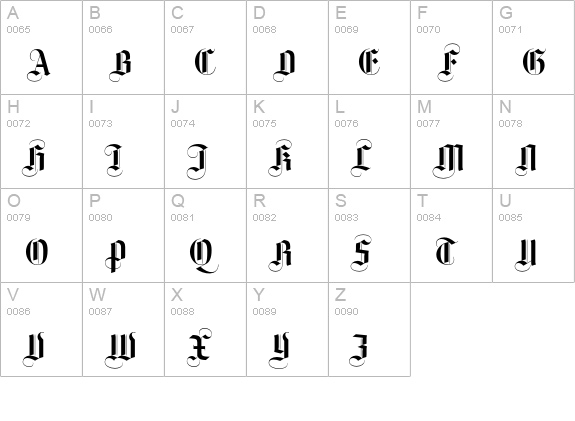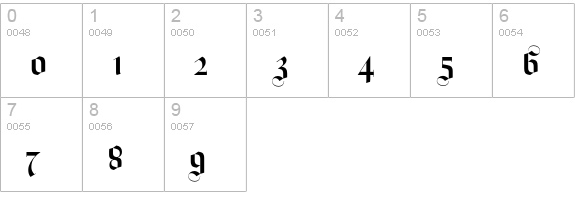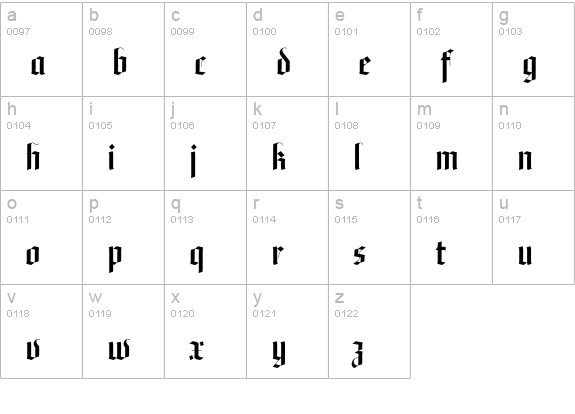
Plagwitz CE Font Details
Introducing Plagwitz CE, a captivating font that effortlessly combines elegance with modernity. This unique typeface is the perfect choice for those seeking a versatile and visually striking font that stands out from the crowd. Plagwitz CE offers a distinctive and sophisticated appeal, making it ideal for a wide range of design projects. Whether you're creating eye-catching logos, designing sleek branding materials, or crafting stunning editorial layouts, this font will effortlessly elevate your work to new heights. With its clean lines and impeccably balanced proportions, Plagwitz CE exudes a sense of refined style and professionalism. Its sharp edges and precise curves add a touch of contemporary flair, making it a truly versatile font that can adapt to any design concept. But what truly sets Plagwitz CE apart is its availability as a free download. Yes, you read that right. Plagwitz CE is freely available to download at FontsMarket.com. This means that you can add this exceptional font to your collection without any cost, making it an invaluable resource for both professional designers and hobbyists alike. So, why wait? Experience the elegance and versatility of Plagwitz CE today. Download this remarkable font from FontsMarket.com and unlock a world of possibilities for your next design project. Let Plagwitz CE take your creations to the next level and leave a lasting impression on your audience.